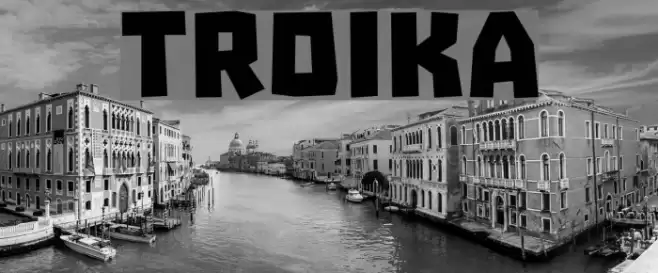
Troika Font
Troika Description
This font features a bold and dynamic style with a strong presence, characterized by its angular and geometric shapes. The uppercase letters are blocky and robust, giving a sense of strength and stability. The lowercase letters maintain the same boldness, ensuring consistency across different text cases. Numbers and special characters follow the same design principles, making them easily recognizable and visually cohesive. The font's unique style makes it stand out, with its sharp edges and distinct form, ideal for grabbing attention.
A bold, angular font with a strong geometric style from Uncategorized fonts.